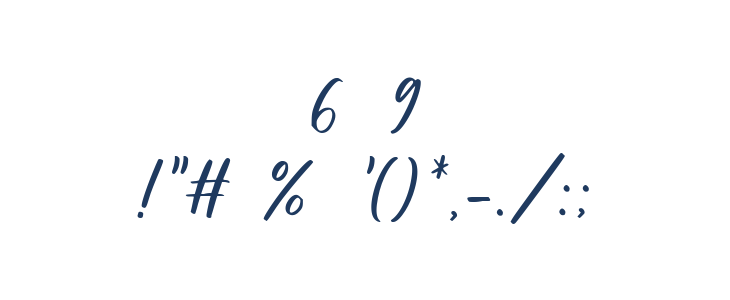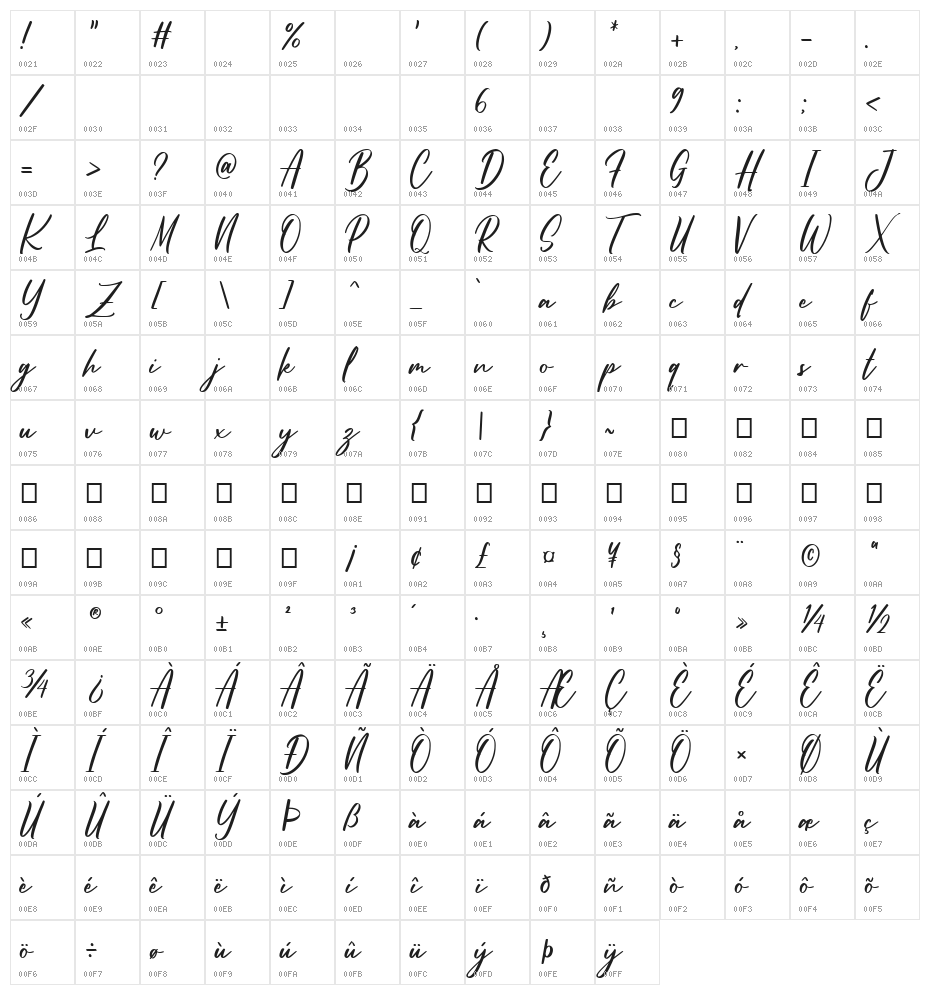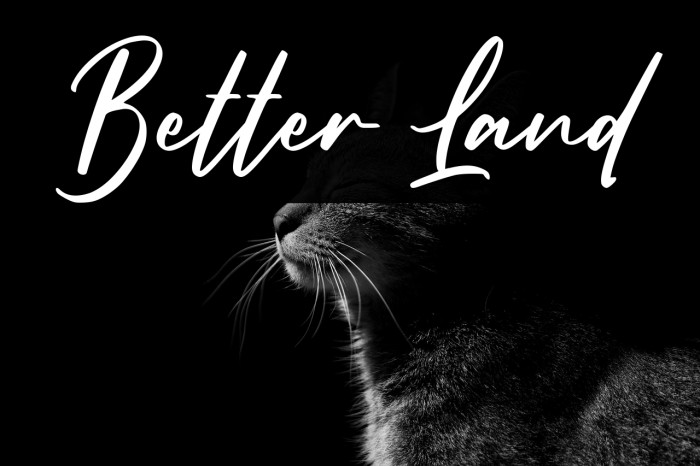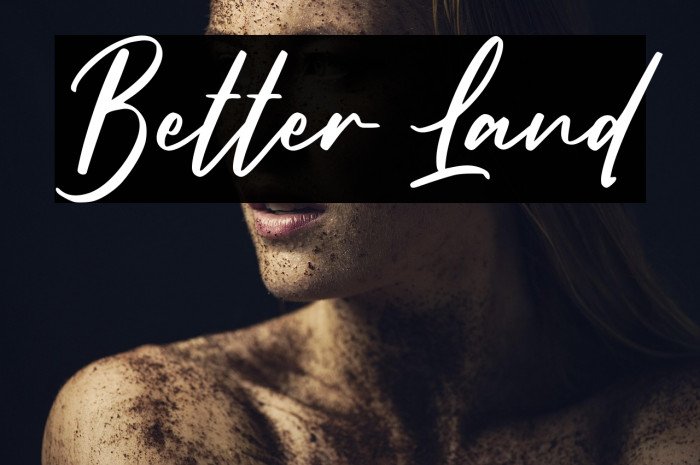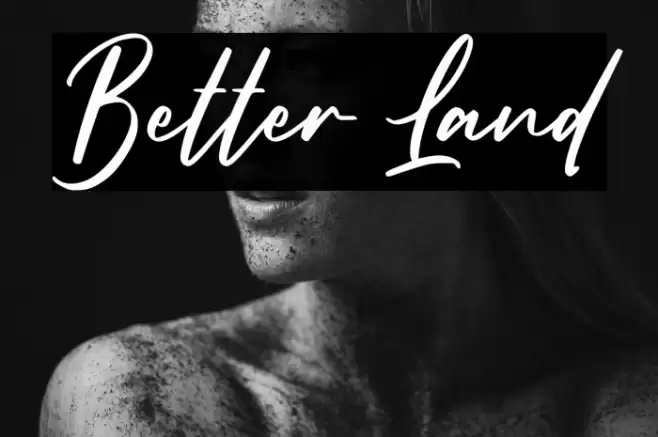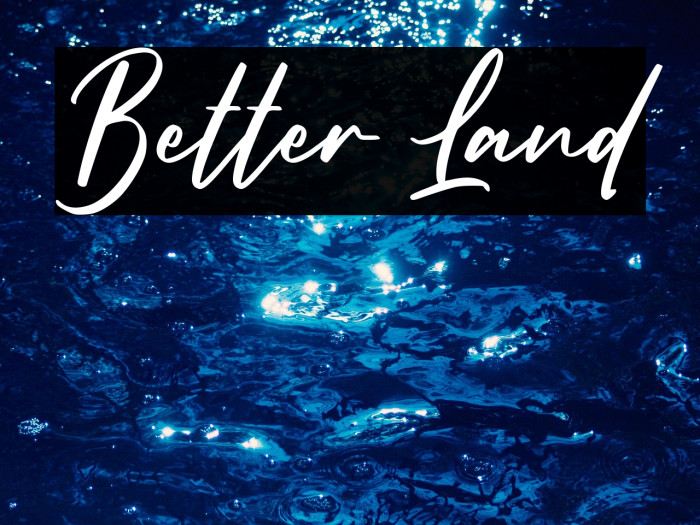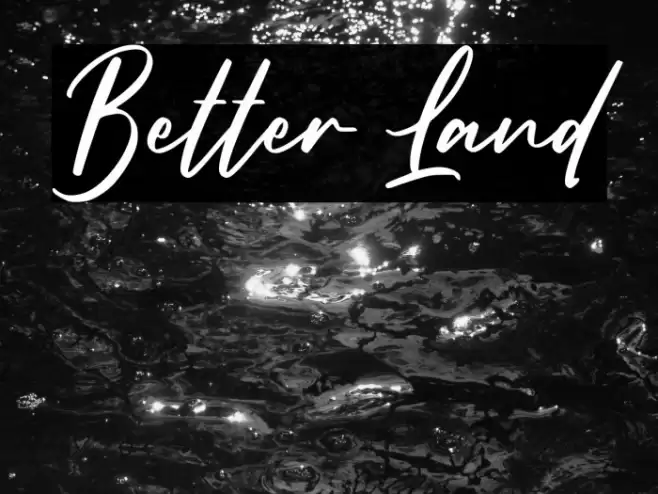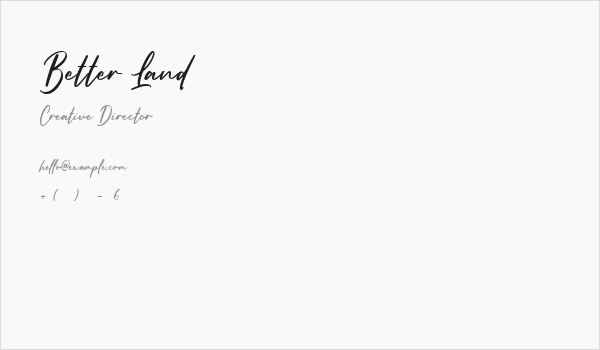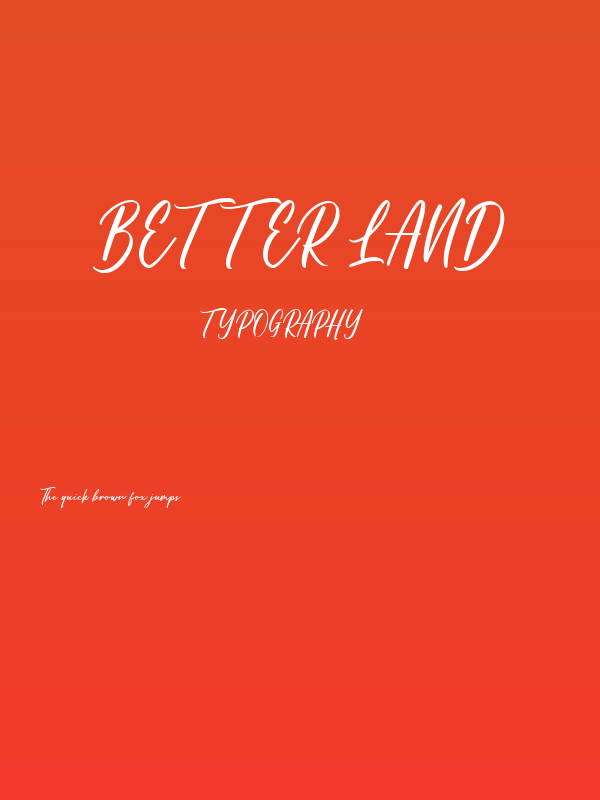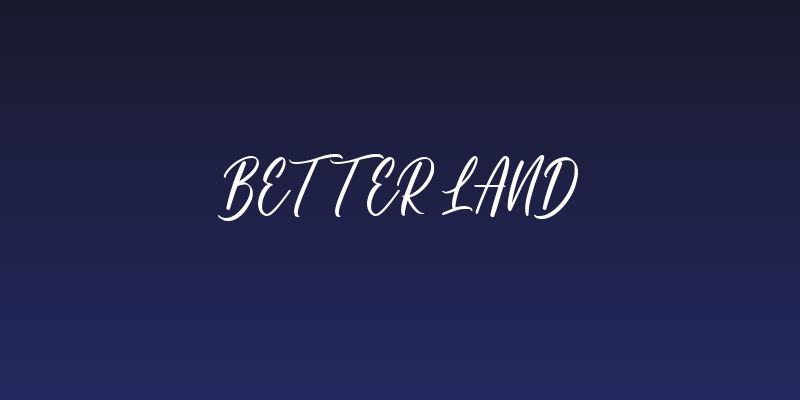
Better Land Font
Better Land Description
This font exudes a dynamic and flowing script style, characterized by its elegant and cursive letterforms. The uppercase letters are tall and slightly slanted, giving a sense of movement and grace. The lowercase letters maintain a consistent flow, with smooth connections between characters, enhancing its handwritten appeal. The numbers are distinct and maintain the same fluidity as the letters, ensuring readability. Special characters are crafted with the same attention to detail, seamlessly integrating into the overall design. The font's artistic flair makes it ideal for creative and expressive projects.